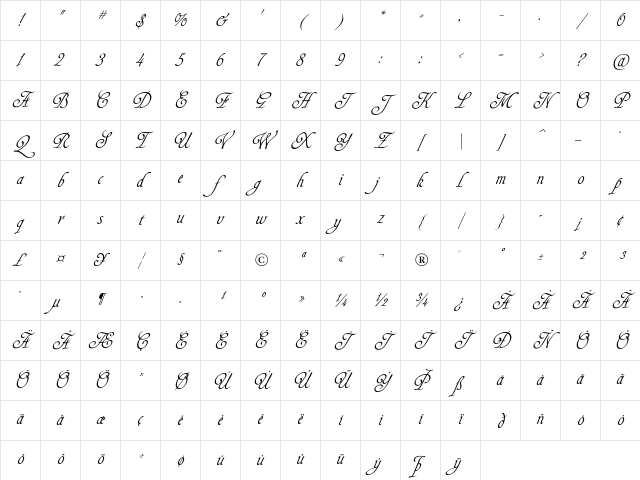
Agedage Cancelleresca Regular
Foundry: Ryoichi Tsunekawa, Flat it type foundry
Designer: Ryoichi Tsunekawa
Design Context for Agedage Cancelleresca
Agedage Cancelleresca is a composed and adaptable typeface that performs quietly and consistently across a wide range of design contexts.